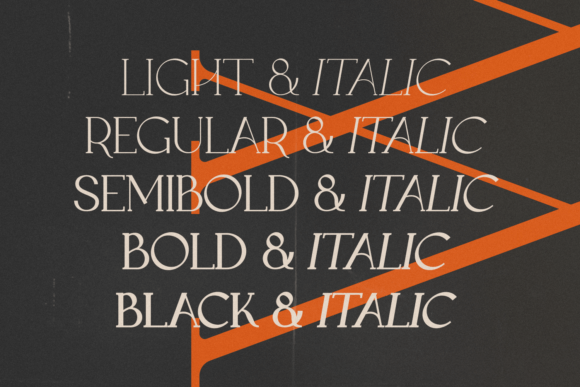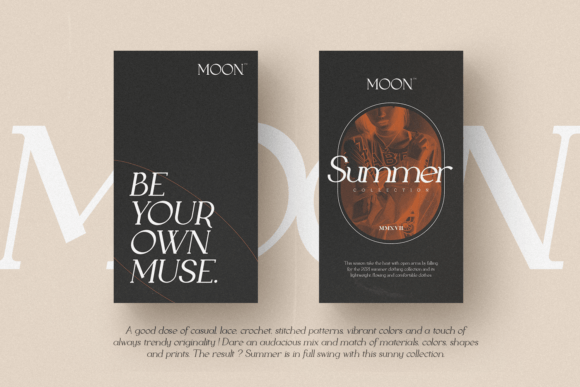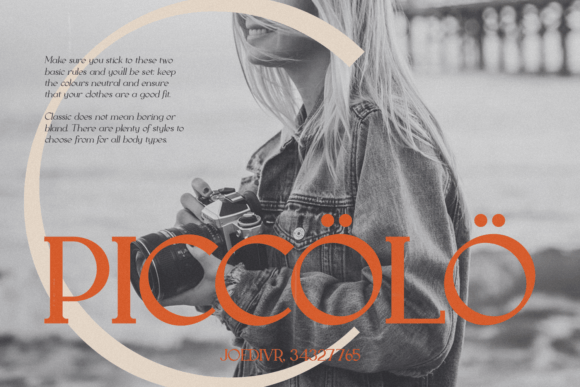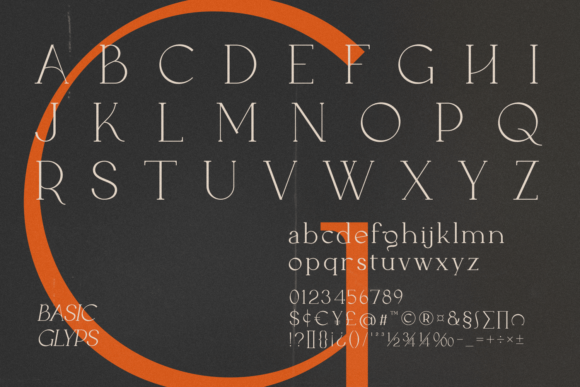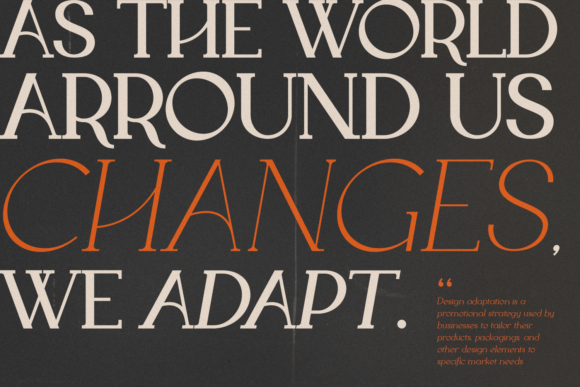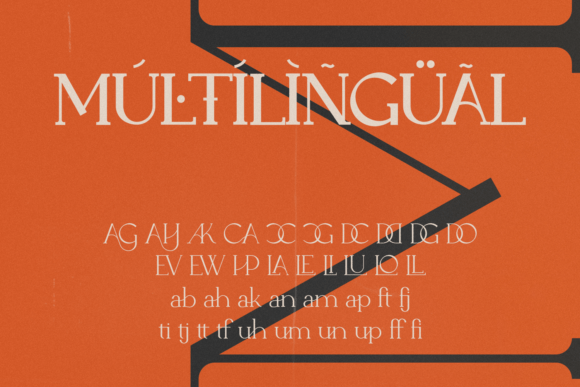
Introduction to Milky Font
Have you ever stared at a blank page, pencil in hand, trying to find the perfect font to bring your creative project to life? The struggle is real, but what if I told you that the perfect font is just a click away? As designers, we’re constantly on the lookout for high-quality fonts that add a touch of elegance to our work. That’s where the Milky Font comes in – a stunning serif font family that’s about to become your new go-to design resource.
With its perfect blend of modern and vintage elements, the Milky Font is a true gem for any creative project. From posters to brochures, this font is sure to add a touch of sophistication and style to your designs. And the best part? It’s PUA encoded, making it easy to access all the amazing glyphs and ligatures you need to take your typography to the next level.
Whether you’re working on a free download or a commercial project, the Milky Font is a valuable addition to your design toolkit. Its versatility and high-quality design make it a must-have for any designer looking to take their work to the next level.
Key Features of Milky Font
- High-quality design: Milky Font is a premium font designed to provide a unique touch to your creative project.
- Unique characteristics: Milky Font features a distinctive, hand-drawn design that adds a touch of elegance and sophistication to any creative project.
- Perfect for creative projects: Whether you’re working on a graphic design, logo, or typography project, Milky Font is an excellent choice due to its high-quality design and versatility.
Honest Review: Milky Font
As a designer, I’m always on the lookout for high-quality fonts to enhance my creative projects. Recently, I had the chance to try out the Milky Font, and I’m excited to share my honest review with you.
- Clean and modern design: The Milky Font features a sleek, modern design that’s perfect for a wide range of creative projects.
- Limited character set: The Milky Font only includes a limited character set, which may not be suitable for projects that require a wide range of characters.
- Not suitable for small text: The font is best used for larger text sizes, as the design may become too thin and difficult to read at smaller sizes.
Overall, I’m impressed with the Milky Font’s clean design and high-quality vectors. While it may have some limitations, it’s an excellent resource for designers looking for a modern, free font. With a little creativity, the Milky Font can be a valuable addition to any design project.